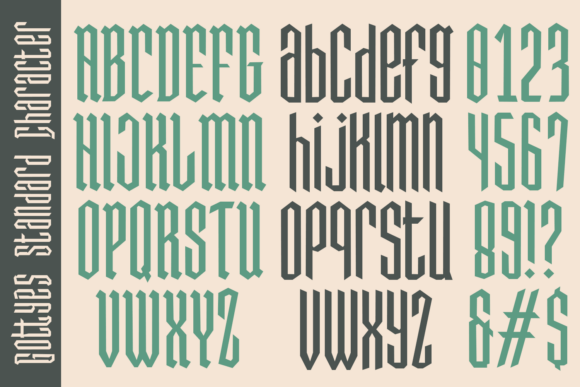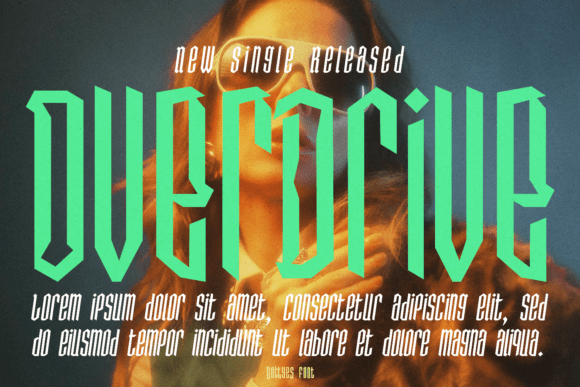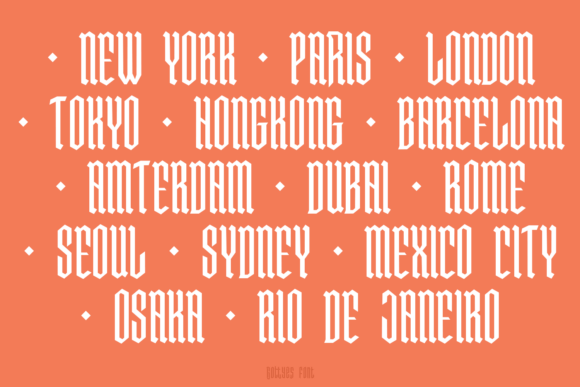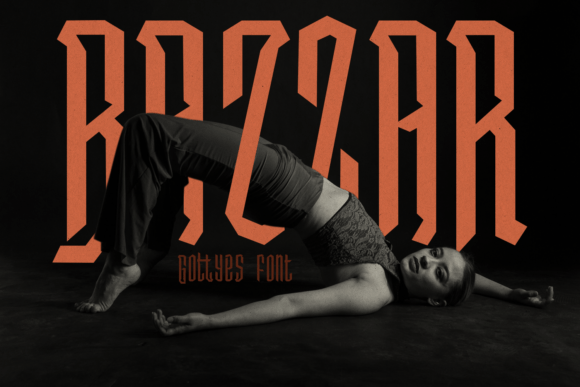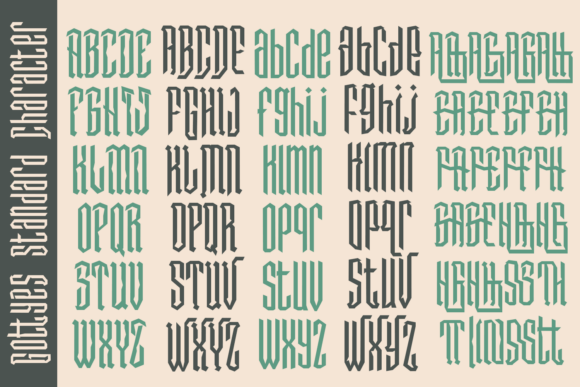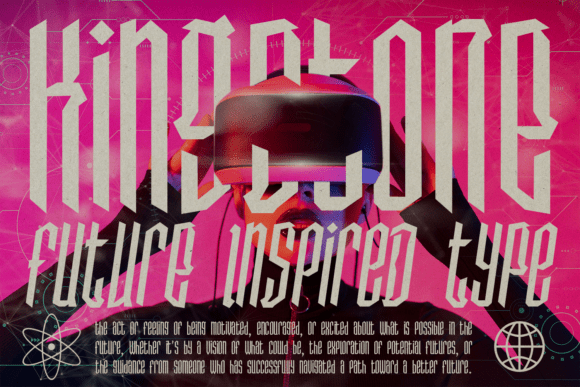
Introducing Gottyes Regular Font: A Modern Typeface with Vintage Charm
In the world of typography, a well-designed font can elevate a project from ordinary to extraordinary. For designers and crafters looking for a unique and versatile typeface, Gottyes Regular Font is an excellent choice. This stunning font blends modern design with a subtle vintage charm, making it perfect for a wide range of projects.
Distinctive Design Elements
Gottyes is a tall, slender typeface that features distinctive, unique curves in select glyphs. These curves add a touch of elegance and sophistication to the font, making it stand out from more traditional typefaces. The font is available in a single weight with a complementary italic variant, providing flexibility and versatility for designers.
Condensed Structure for Impactful Headlines
One of the key features of Gottyes is its condensed structure. This makes it an excellent choice for striking headlines that demand attention. The font’s narrow width allows for more text to be fitted into a smaller space, making it perfect for titles, headings, and other display text. Whether you’re designing a poster, brochure, or website, Gottyes is sure to make a lasting impression.
Beyond Display: Versatility Across Projects
While primarily designed as a display typeface, Gottyes is versatile enough to explore across both digital and print projects. Its unique blend of modern and vintage elements makes it suitable for a wide range of applications, from branding and advertising to packaging and editorial design. Whether you’re creating a business card or a billboard, Gottyes is a great choice.
Key Features of Gottyes Regular Font
- Tall, slender typeface with a condensed structure
- Distinctive, unique curves in select glyphs
- Available in a single weight with a complementary italic variant
- Perfect for striking headlines and display text
- Versatile enough for use in both digital and print projects
Why Choose Gottyes?
So why choose Gottyes Regular Font for your next project? Here are just a few reasons:
- Unique Design: Gottyes features a distinctive design that sets it apart from more traditional typefaces.
- Versatility: The font’s versatility makes it suitable for a wide range of projects, from display text to body copy.
- Elegance: Gottyes adds a touch of elegance and sophistication to any project.
- Readability: Despite its condensed structure, Gottyes remains highly readable, even at smaller sizes.
Using Gottyes in Your Design Projects
Gottyes Regular Font is easy to use and can be incorporated into a variety of design projects. Here are a few tips for getting the most out of this stunning font:
- Pair with a sans-serif font: For body copy, consider pairing Gottyes with a sans-serif font to create a nice contrast.
- Experiment with sizes: Gottyes is highly readable at a range of sizes, so don’t be afraid to experiment with different sizes and weights.
- Use in headlines: Gottyes is perfect for striking headlines that demand attention.
| Font Name | Gottyes Regular Font |
| Author | madeDeduk |
Gottyes Regular Font is a stunning typeface that blends modern design with a subtle vintage charm. Its distinctive curves, condensed structure, and versatility make it an excellent choice for designers and crafters looking for a unique and elegant font. Whether you’re working on a digital project or a print project, Gottyes is sure to elevate your design and leave a lasting impression.